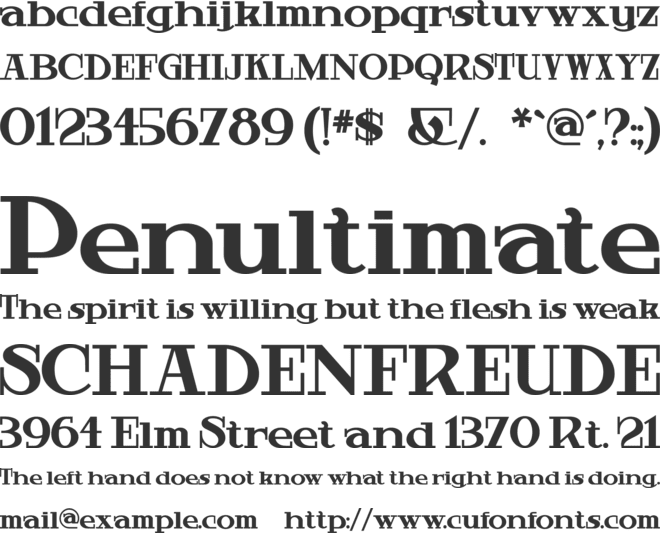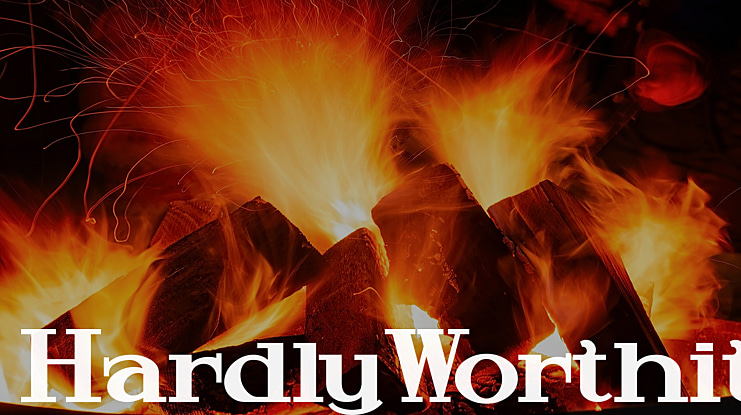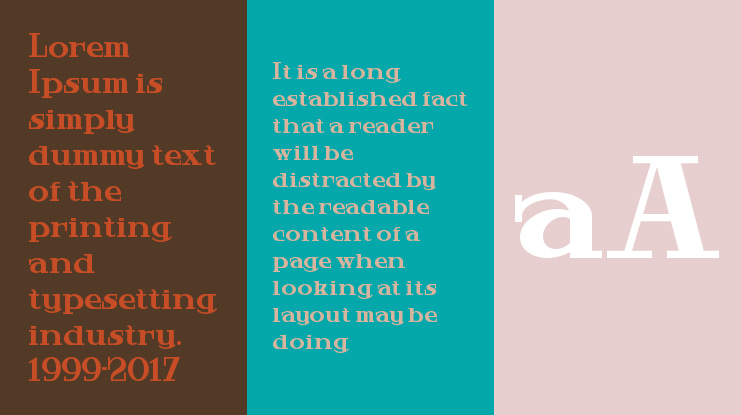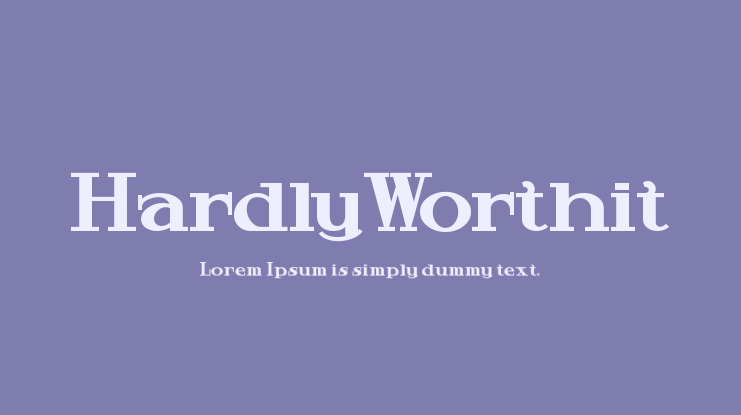
HardlyWorthit Font
This handy-dandy font is based on a design labeled simply “No. 185 — Poster Letters,” from Lettering for Commercial Purposes, Sixth Edition (1931). It’s the handiwork of William Hugh Gordon, one of many lettering artists who published how-to handbooks in the first half of the twentieth century. Seems like just yesterday, doesn’t it?